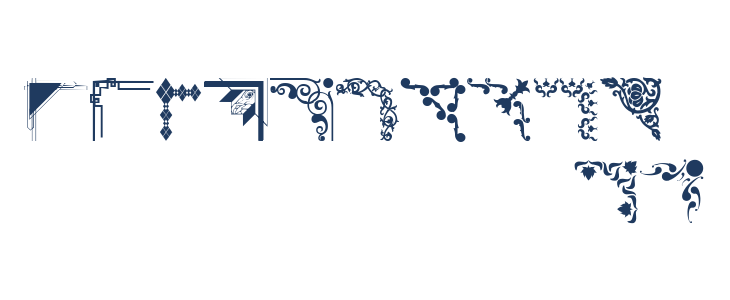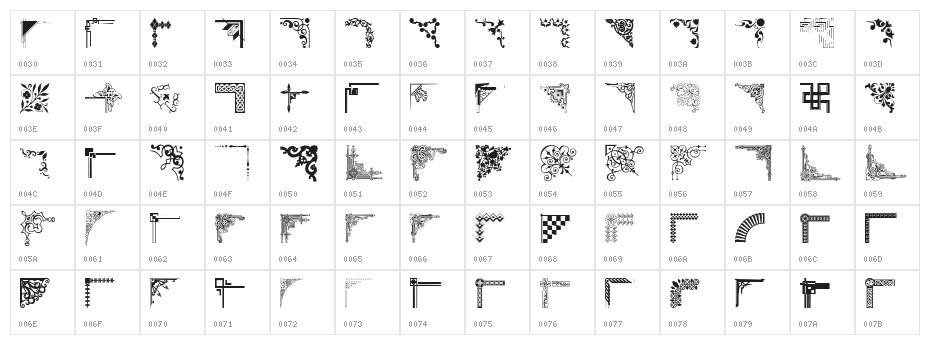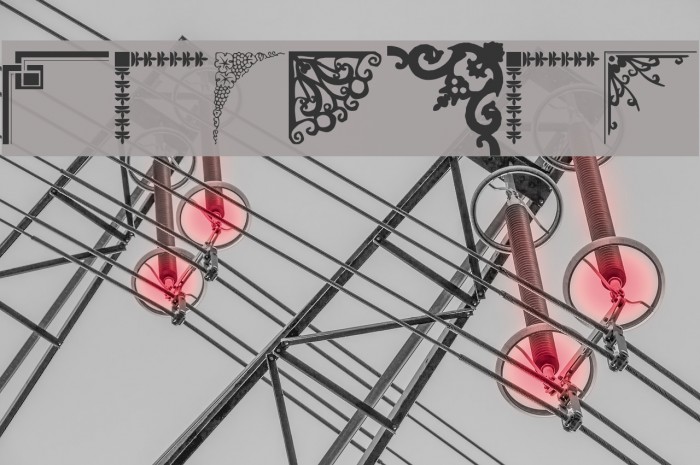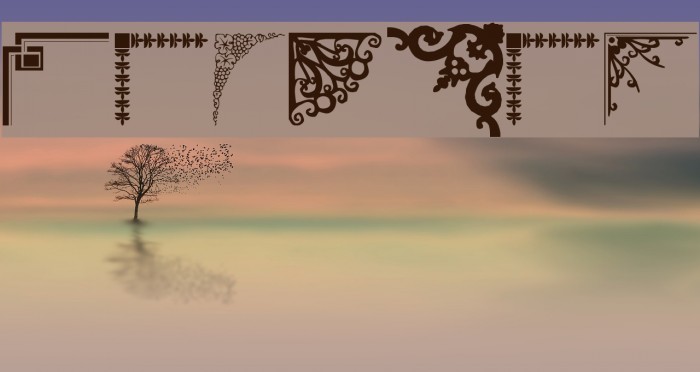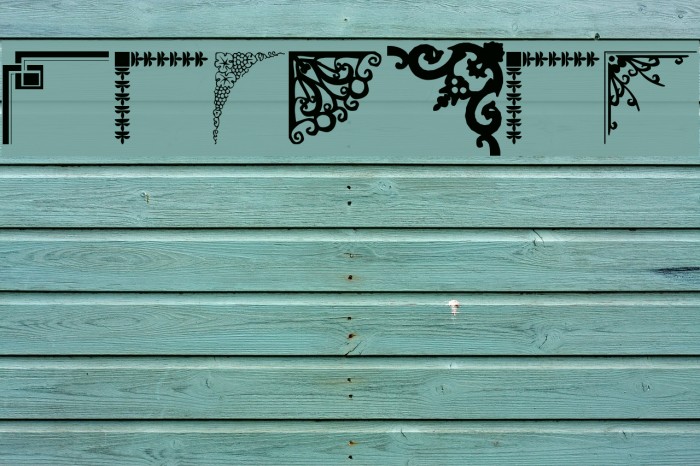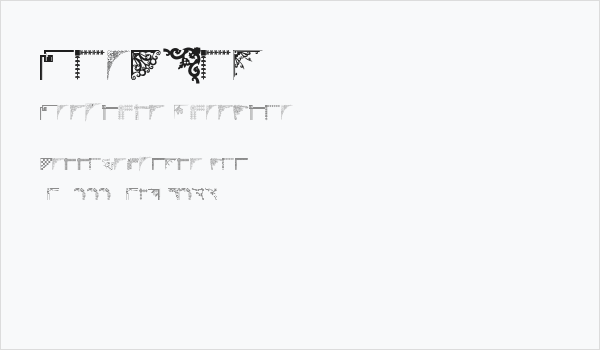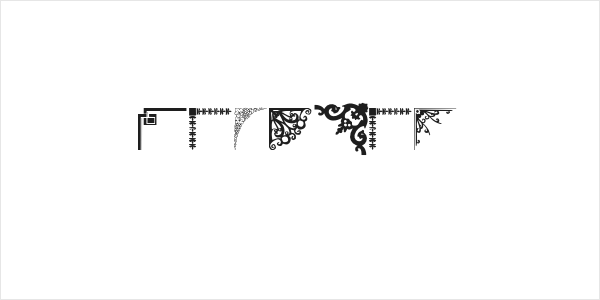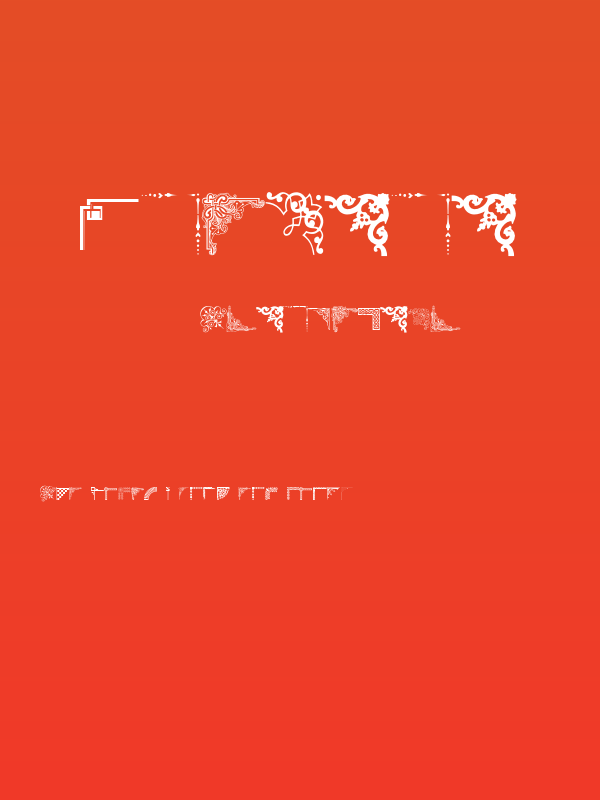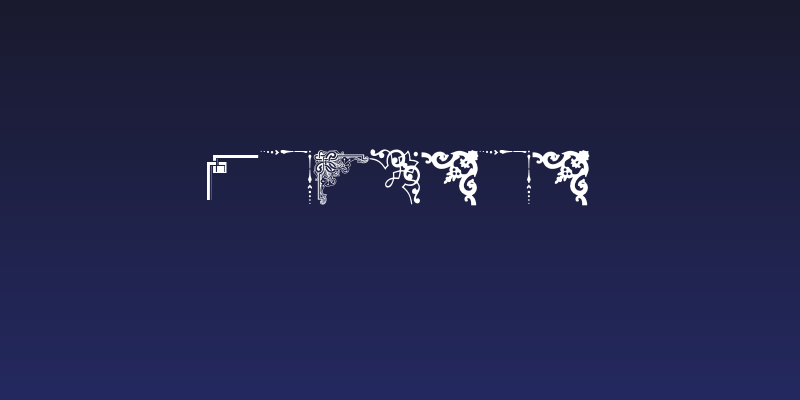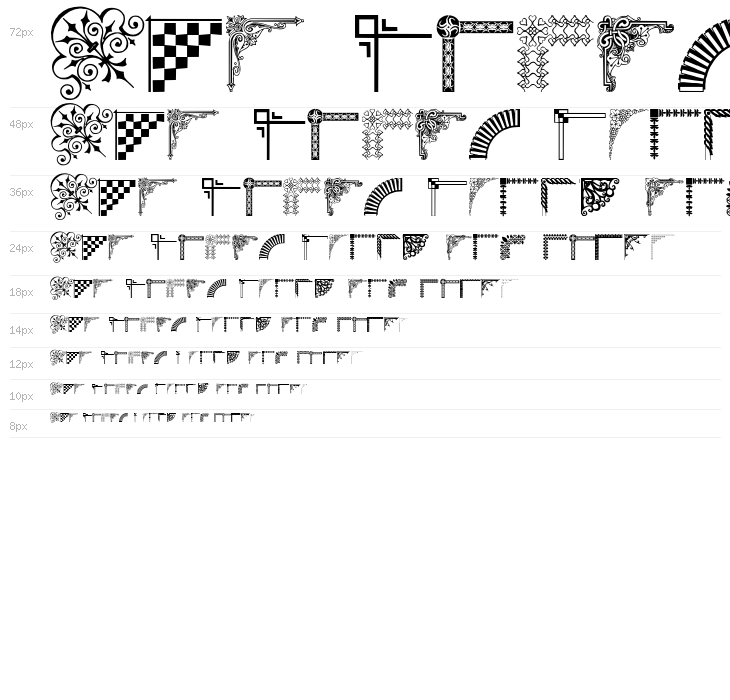
CornPop Font
CornPop Description
This collection of decorative corner elements features intricate and ornate designs, each with a unique flair. The designs range from floral motifs to geometric patterns, showcasing a variety of artistic styles. These elements are ideal for adding a touch of elegance and sophistication to any project. The intricate details and diverse styles make them versatile for various design applications, from vintage to modern aesthetics.
| Use Case | Decorative elements for design projects. |
| Proposed Projects | These decorative elements are perfect for use in invitations, greeting cards, scrapbooking, and other creative projects that require a touch of elegance and sophistication. |